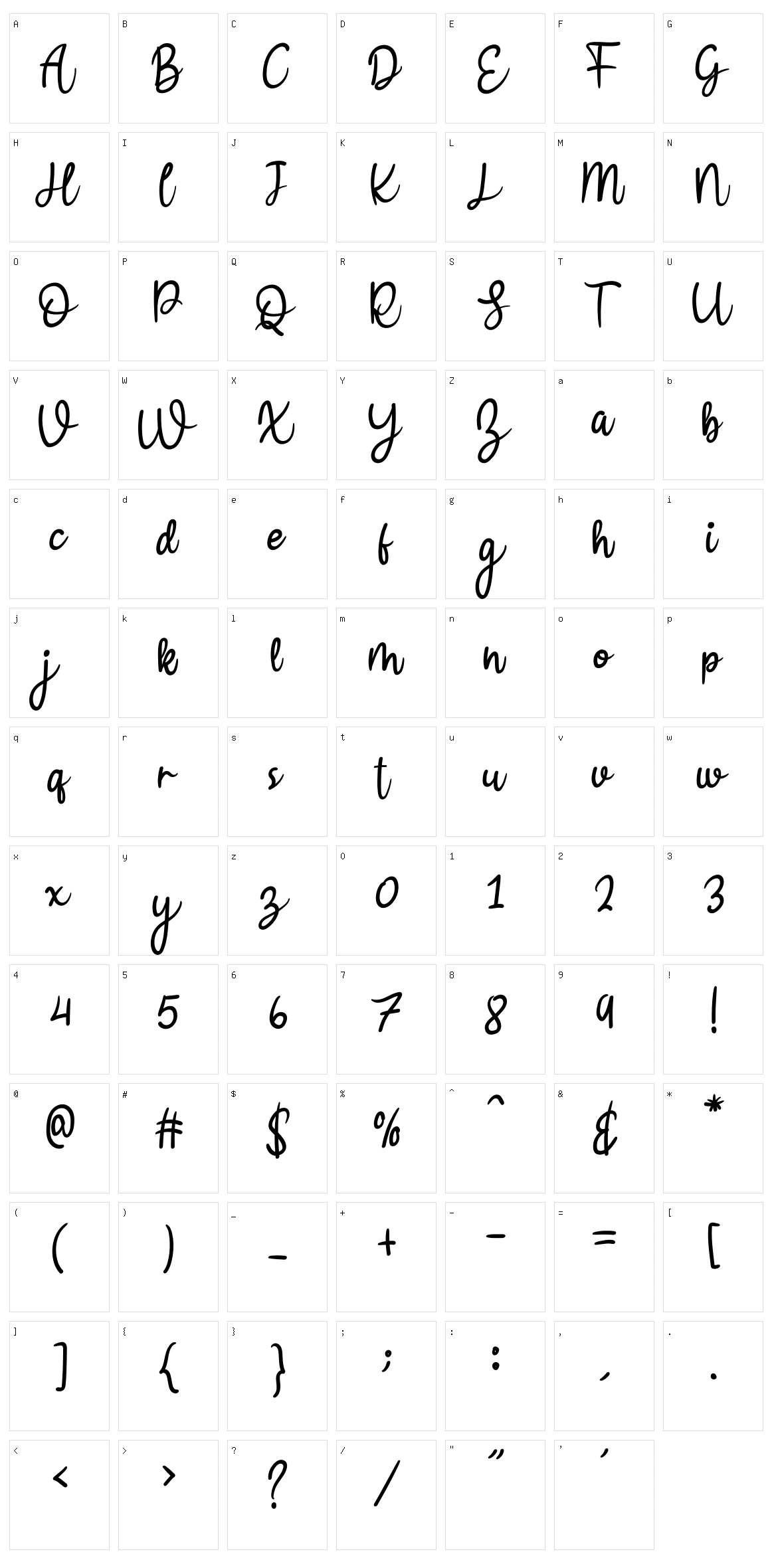
The free font Bllodir Smart is carefully designed by Metal Studio, showcasing a thoughtful balance of creativity and usability and falls under the Script font style. When you download the ZIP file, it contains only 139.45 KB of font files, making it lightweight and quick to download. Please review the license details below to understand permitted usage and distribution rights. If license information is not available, we recommend using this font for personal projects only or contacting the author directly for commercial usage permissions.